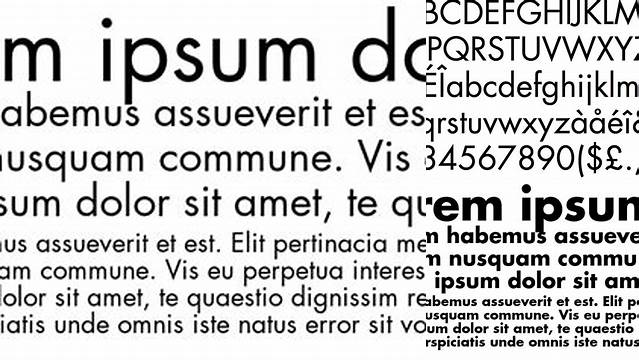
Are you on the hunt for a classic and versatile font that can elevate your design projects? Look no further! Futura Maxi STD Book is a typeface that stands the test of time, offering a blend of elegance and functionality that makes it a favorite among designers worldwide. In this comprehensive guide, we'll delve into the history, characteristics, and applications of Futura Maxi STD Book, and most importantly, show you where to find it for free download. So, buckle up, font enthusiasts, and let's dive into the world of Futura!
What is Futura Maxi STD Book Font?
When it comes to font selection, understanding the nuances of each typeface is crucial. Futura Maxi STD Book is more than just a font; it's a design statement. This section will explore the origins, design principles, and unique attributes that make Futura Maxi STD Book a standout choice for various design applications. We'll discuss its geometric construction, readability, and overall impact on visual communication. So, let’s unravel the magic behind Futura Maxi STD Book and see why it continues to be a go-to font for designers across the globe.
The History and Origins of Futura
To truly appreciate Futura Maxi STD Book, we need to rewind the clock to the 1920s. This is where our journey begins, with the birth of Futura, a typeface that would redefine typographic norms. Designed by Paul Renner in 1927, Futura was conceived as a typeface that embodied the spirit of the Bauhaus movement, characterized by its clean lines, geometric shapes, and functional aesthetic. Renner's vision was to create a typeface that was both modern and timeless, a goal he achieved with remarkable success. The design was heavily influenced by the geometric forms prevalent in the Bauhaus school of design, emphasizing simplicity and clarity. This influence is evident in Futura's use of near-perfect circles, squares, and triangles as the foundation for its letterforms. This geometric purity gives Futura a distinctively modern and minimalist appearance, setting it apart from the more ornate typefaces of its time. The impact of Futura on the world of typography cannot be overstated. It quickly became a symbol of modernity and was widely adopted in various applications, from print to signage. Its clean, legible design made it ideal for corporate branding, editorial design, and even architectural signage. Futura's influence can be seen in countless logos, posters, and publications throughout the 20th century and continues to be a popular choice for designers today. The geometric sans-serif style that Futura pioneered paved the way for many other typefaces, establishing a new standard for modern typography. Its legacy is a testament to Renner's vision and the enduring appeal of well-crafted, functional design. So, the next time you see Futura in use, remember its rich history and the groundbreaking movement that inspired its creation. It's a font that not only looks good but also carries a significant piece of design history with it.
Key Characteristics of Futura Maxi STD Book
Futura Maxi STD Book is celebrated for its distinct characteristics that make it a versatile and visually appealing typeface. Let's break down the key features that define this font and make it a staple in the design world. At its core, Futura Maxi STD Book is a geometric sans-serif typeface, meaning it's constructed from basic geometric shapes and lacks the small decorative strokes (serifs) found in other font families. This geometric foundation gives Futura its clean, modern, and almost architectural appearance. The letterforms are based on near-perfect circles, squares, and triangles, which contribute to its sense of order and precision. One of the most notable aspects of Futura is its consistent stroke weight. Unlike some typefaces that vary the thickness of their lines, Futura maintains a uniform stroke width throughout, adding to its minimalist and contemporary feel. This consistency also enhances readability, making it a great choice for both headlines and body text. The uppercase letters in Futura are particularly striking, with their tall, elegant forms and wide proportions. They exude a sense of strength and sophistication, making them ideal for impactful headings and branding materials. The lowercase letters, while maintaining the geometric theme, are designed to be highly legible, ensuring that text blocks remain easy to read. Futura’s clean lines and open shapes create a sense of spaciousness, preventing the text from feeling cramped or cluttered. This is especially important for longer passages of text, where readability is paramount. The font’s even texture and balanced letterforms contribute to a harmonious reading experience, making it a favorite among designers and readers alike. Futura Maxi STD Book is available in a range of weights, from light to bold, providing designers with flexibility in their typographic choices. The Book weight, in particular, strikes a perfect balance between elegance and readability, making it a versatile option for a wide array of applications. Whether you're designing a logo, creating a poster, or laying out a magazine, Futura Maxi STD Book offers a timeless appeal that can elevate your project. Its geometric precision and clean aesthetic make it a reliable and stylish choice for any design endeavor. So, understanding these key characteristics will help you appreciate and effectively utilize Futura Maxi STD Book in your own creative work.
Why Futura Maxi STD Book is a Popular Choice
Futura Maxi STD Book has solidified its place as a favorite among designers for numerous reasons, blending aesthetic appeal with practical functionality. Its enduring popularity stems from its ability to convey a sense of modernity, clarity, and sophistication, making it suitable for a wide range of applications. One of the primary reasons designers gravitate towards Futura Maxi STD Book is its timeless design. Unlike trendy fonts that may fall out of favor, Futura’s geometric simplicity ensures it remains relevant and stylish across decades. Its clean lines and balanced proportions create a sense of elegance that transcends fleeting design fads. The versatility of Futura Maxi STD Book is another key factor in its popularity. It works exceptionally well in various contexts, from branding and advertising to editorial and web design. Its clear letterforms make it highly legible in both print and digital formats, ensuring that your message is communicated effectively, regardless of the medium. In branding, Futura Maxi STD Book projects a sense of professionalism and modernity. Many well-known brands have adopted Futura for their logos and marketing materials, leveraging its clean aesthetic to convey a message of reliability and innovation. Its geometric precision resonates with industries that value accuracy and forward-thinking, such as technology, finance, and architecture. In the realm of editorial design, Futura Maxi STD Book excels in both headlines and body text. Its balanced letterforms create a harmonious reading experience, making it ideal for magazines, books, and websites. The range of weights available allows designers to create visual hierarchy and emphasize key information without sacrificing readability. Web designers also appreciate Futura Maxi STD Book for its legibility on screens. Its clean shapes and consistent strokes render well at various sizes, ensuring that text remains clear and readable, even on smaller devices. This makes it a popular choice for website headers, navigation menus, and body text. Furthermore, Futura Maxi STD Book's neutral tone makes it a versatile partner for other fonts. It pairs well with both serif and sans-serif typefaces, allowing designers to create dynamic and visually engaging compositions. Its understated elegance enhances the overall design without overpowering other elements. In summary, Futura Maxi STD Book’s popularity is rooted in its timeless design, versatility, and readability. Its ability to adapt to various applications while maintaining a sense of sophistication makes it an indispensable tool for designers. Whether you’re creating a brand identity, designing a website, or laying out a publication, Futura Maxi STD Book offers a reliable and stylish solution that stands the test of time. It’s no wonder this font continues to be a go-to choice for creative professionals around the world.
Applications of Futura Maxi STD Book
The beauty of Futura Maxi STD Book lies not only in its design but also in its adaptability. This section will explore the diverse range of applications where Futura Maxi STD Book shines, from branding and advertising to editorial and web design. We'll look at specific examples and discuss why this font is so effective in each context. So, let's uncover the versatility of Futura Maxi STD Book and see how it can enhance your design projects.
Branding and Logo Design
When it comes to branding and logo design, Futura Maxi STD Book is a stalwart choice for creating a lasting impression. Its clean, geometric lines convey a sense of modernity and sophistication, making it ideal for brands looking to project a contemporary image. Let’s delve into why Futura Maxi STD Book is so effective in this context and explore some examples of its successful use. One of the primary reasons Futura Maxi STD Book works well in branding is its simplicity. The font's minimalist design ensures that it remains legible and impactful, even at small sizes. This is crucial for logos, which often need to be scaled down for use on business cards, websites, and other marketing materials. The clean lines and balanced proportions of Futura Maxi STD Book create a sense of visual harmony, making it easy on the eyes and memorable. Futura Maxi STD Book’s geometric forms also lend themselves well to conveying a sense of precision and reliability. Brands in industries such as technology, finance, and engineering often choose Futura to communicate their commitment to accuracy and innovation. The font’s structured appearance inspires confidence and trust, essential qualities for building a strong brand identity. Another advantage of using Futura Maxi STD Book in logo design is its versatility. It pairs well with a wide range of other fonts, allowing designers to create unique and dynamic visual identities. Whether combined with a serif typeface for a touch of classic elegance or a more modern sans-serif for a cohesive contemporary look, Futura Maxi STD Book adapts seamlessly to various design aesthetics. Moreover, Futura Maxi STD Book has a timeless quality that ensures a logo will remain relevant for years to come. Unlike trendy fonts that may quickly become dated, Futura’s classic design has stood the test of time, continuing to be a stylish choice for brands across various industries. This longevity makes it a wise investment for businesses looking to establish a durable and recognizable brand identity. In practice, Futura Maxi STD Book has been used in the logos of numerous well-known companies, a testament to its effectiveness and broad appeal. These examples highlight Futura Maxi STD Book's ability to project a sense of modernity, reliability, and sophistication, making it a go-to choice for branding and logo design. Its clean lines, geometric forms, and timeless quality ensure that it will continue to be a favorite among designers looking to create impactful and enduring brand identities.
Editorial Design: Magazines and Books
In the realm of editorial design, Futura Maxi STD Book shines as a versatile and elegant choice for both magazines and books. Its clean lines and balanced letterforms make it a joy to read, while its sophisticated aesthetic adds a touch of class to any publication. Let’s explore how Futura Maxi STD Book enhances editorial layouts and why it's a preferred font for designers in this field. One of the primary reasons Futura Maxi STD Book excels in editorial design is its exceptional readability. The font’s clear and open shapes, combined with its consistent stroke weight, ensure that text remains legible even in long passages. This is particularly important for body text, where reader comfort and comprehension are paramount. Futura Maxi STD Book’s balanced proportions and uniform appearance create a harmonious reading experience, reducing eye strain and allowing readers to focus on the content. Furthermore, Futura Maxi STD Book is highly effective for headlines and subheadings. Its strong geometric forms and elegant letterforms command attention, drawing readers into the text. The font’s clean lines and modern aesthetic create a sense of sophistication, making it ideal for publications that aim to project a stylish and contemporary image. The range of weights available in the Futura family, including the Book weight, provides designers with flexibility in creating visual hierarchy. By using different weights for headlines, subheadings, and body text, designers can guide the reader’s eye through the page and emphasize key information. This helps to organize the content and make it more accessible to the reader. Futura Maxi STD Book’s versatility also makes it a great choice for various editorial styles. Whether you're designing a minimalist magazine, a classic novel, or a contemporary journal, Futura adapts seamlessly to different aesthetics. Its neutral tone and elegant forms make it a reliable partner for other fonts, allowing designers to create dynamic and visually engaging layouts. In magazine design, Futura Maxi STD Book is often used for both the main body text and the display typography. Its clean appearance complements striking visuals, creating a polished and professional look. The font’s legibility ensures that articles are easy to read, while its sophisticated style enhances the overall aesthetic of the publication. For books, Futura Maxi STD Book offers a timeless appeal that suits a wide range of genres. Its readability and elegant forms make it a popular choice for both fiction and non-fiction works. The font’s classic design ensures that the book looks and feels substantial, adding to the reader’s enjoyment of the text. In summary, Futura Maxi STD Book is a stellar choice for editorial design due to its readability, versatility, and elegant aesthetic. Its clean lines, balanced letterforms, and wide range of weights make it an indispensable tool for creating engaging and visually appealing magazines and books. Whether you're designing a minimalist layout or a classic composition, Futura Maxi STD Book offers a timeless solution that enhances the reader’s experience.
Web Design and Digital Applications
In the dynamic world of web design and digital applications, Futura Maxi STD Book stands out as a reliable and stylish choice. Its clean lines and exceptional legibility make it ideal for creating user-friendly interfaces and engaging digital content. Let's explore why Futura Maxi STD Book is a preferred font for web designers and how it enhances digital experiences. One of the primary reasons Futura Maxi STD Book excels in web design is its superior readability on screens. The font's clear and open shapes, combined with its consistent stroke weight, ensure that text remains legible even at smaller sizes and lower resolutions. This is crucial for websites and applications, where users may be viewing content on a variety of devices, from large desktop monitors to small mobile screens. Futura Maxi STD Book’s balanced letterforms and uniform appearance create a comfortable reading experience, reducing eye strain and making it easier for users to consume information. Furthermore, Futura Maxi STD Book's geometric simplicity lends itself well to modern and minimalist web designs. Its clean lines and understated elegance create a sense of sophistication, making it a great choice for websites that aim to project a contemporary image. The font’s geometric forms also complement the grid-based layouts commonly used in web design, contributing to a visually harmonious and structured appearance. Futura Maxi STD Book is highly effective for headlines, body text, and navigational elements. Its strong presence commands attention, making it ideal for headings and calls to action. Its legibility ensures that body text is easy to read, while its clean lines enhance the clarity of navigational menus and buttons. The font’s versatility allows designers to create a cohesive and user-friendly interface, guiding users seamlessly through the website or application. In digital applications, Futura Maxi STD Book is often used in user interfaces (UI) and user experience (UX) design. Its clean and modern aesthetic enhances the overall look and feel of the application, while its legibility ensures that users can easily interact with the interface. The font’s versatility allows designers to create a visually appealing and intuitive experience, improving user satisfaction and engagement. Moreover, Futura Maxi STD Book’s neutral tone makes it a versatile partner for other fonts in web design. It pairs well with both serif and sans-serif typefaces, allowing designers to create dynamic and visually engaging compositions. Its understated elegance enhances the overall design without overpowering other elements, ensuring that the website or application looks polished and professional. In summary, Futura Maxi STD Book is an excellent choice for web design and digital applications due to its readability, geometric simplicity, and versatility. Its clean lines, balanced letterforms, and superior legibility make it an indispensable tool for creating user-friendly interfaces and engaging digital content. Whether you're designing a website, a mobile app, or a digital publication, Futura Maxi STD Book offers a reliable and stylish solution that enhances the user experience.
Conclusion: The Enduring Appeal of Futura Maxi STD Book
In conclusion, Futura Maxi STD Book remains a timeless and versatile typeface, celebrated for its clean lines, geometric precision, and exceptional legibility. Its enduring appeal stems from its ability to convey a sense of modernity, sophistication, and clarity, making it a staple in branding, editorial design, and web design. While the quest for a free download may be tempting, it's crucial to prioritize legality and safety by exploring font subscriptions, affordable purchasing options, or legitimate free alternatives. By understanding font licensing and approaching free font websites with caution, you can ensure that you're using fonts responsibly and ethically. Futura Maxi STD Book’s legacy as a design classic is well-deserved, and its versatility makes it a valuable addition to any designer’s toolkit. Whether you're crafting a logo, designing a magazine, or building a website, Futura Maxi STD Book offers a reliable and stylish solution that stands the test of time. So, embrace the enduring appeal of Futura Maxi STD Book and let its timeless elegance elevate your design projects.